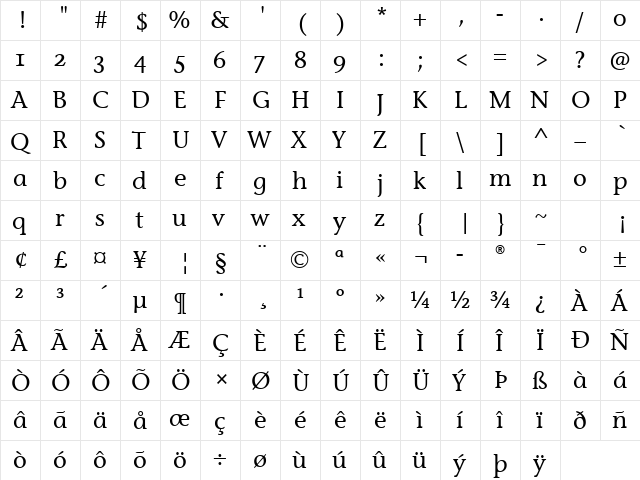
Stone Inf OS ITC TT Medium
Design Context for Stone Inf OS ITC TT Typeface
Stone Inf OS ITC TT takes a measured approach to typography — its balanced proportions and neutral character make it a reliable workhorse for both digital and print work.